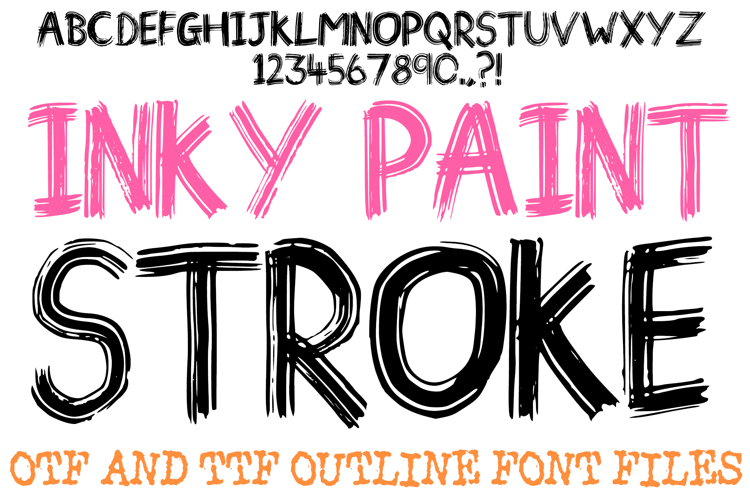
Inky Paint Stroke Bold Font Letters Alphabet ABC Text Grunge
Capture the raw energy of a professional art studio with the Inky Paint Stroke Font! This expressive display typeface is hand-drawn using real paint and ink to achieve an authentic, high-textured look. It is characterized by its professional dry-brush technique, featuring prominent bristle textures and visible "feathering" at the ends of each stroke. Its multiple-layered ink paths create a sense of rapid movement and gestural flair, making it an outstanding choice for modern branding, edgy apparel, and high-impact editorial design.
Each character feels like a fresh sketch captured in a moment of creative inspiration, directly from the artist's brush to your screen. Whether you are designing for the fashion industry, creating cinematic title cards, or adding a handcrafted touch to urban street art, the Inky Paint Stroke Font brings a powerful, textured soul to your digital and print projects.
- Made with Real Paint: Every letter is a high-resolution scan of a physical hand-drawn stroke, ensuring a genuine artistic finish.
- Hand-Drawn Authenticity: Captures the natural imperfections and "human touch" of real-world ink and paint.
- Authentic Brushwork: Every letter showcases the unique, scratchy textures of a dry brush dragging across paper.
- High-Motion Aesthetic: The overlapping "paint" lines give the font a fast-paced, energetic personality.
- Artistic Versatility: Perfect for projects ranging from high-end gallery branding to gritty, underground music posters.